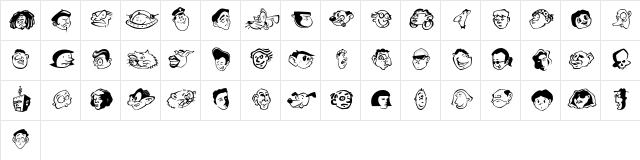
HeadsoftheHousehold Medium
| Foundry | Copr. House Industries, Brand Design Company. Font By Allen Mercer and Ken Barber |
Design Context for HeadsoftheHousehold Typeface
HeadsoftheHousehold is a composed and adaptable typeface that performs quietly and consistently across a wide range of design contexts.